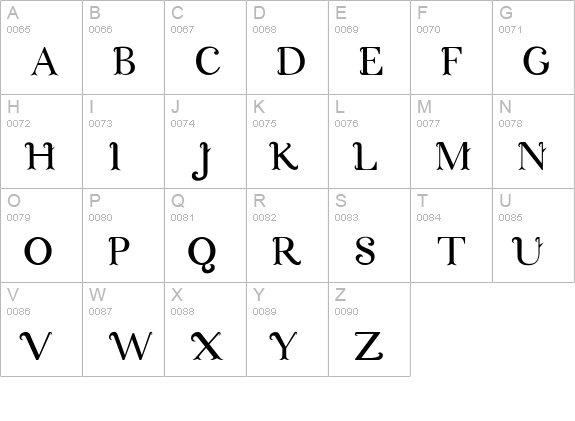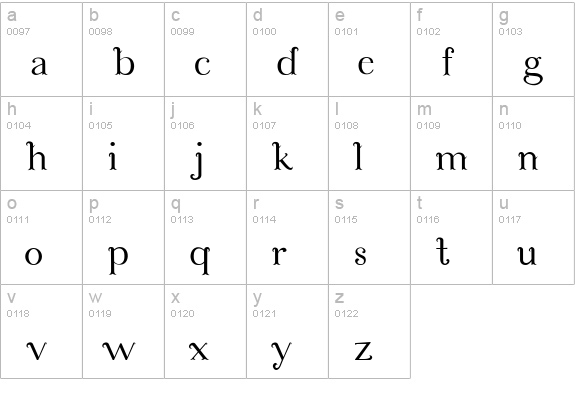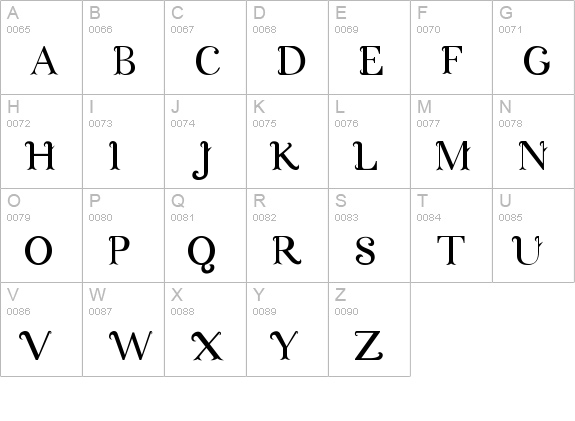
Introducing Cosmic Love, a mesmerizing and magical font that will transport you to another dimension. With its ethereal curves and celestial-inspired letterforms, this font captures the essence of cosmic beauty and universal love. Cosmic Love is not just any font - it is a work of art that combines elegance and enchantment in perfect harmony. Each letter is carefully crafted to evoke a sense of wonder and awe, as if they were plucked from the starry skies themselves. But what sets Cosmic Love apart is not only its extraordinary design, but also its accessibility. We believe that art should be free for all to enjoy, and that's why Cosmic Love is freely available to download at FontsMarket.com. Now, you can bring a touch of cosmic magic to your projects without breaking the bank. Whether you're designing a celestial-themed poster, creating a mystical logo, or adding a touch of enchantment to your social media posts, Cosmic Love is the perfect font to make your creations shine. Its versatility allows it to be used in a wide range of design projects, from branding and advertising to invitations and packaging. Immerse yourself in the cosmic beauty of Cosmic Love and let its captivating charm elevate your designs to new heights. Download this extraordinary font today at FontsMarket.com and let your imagination soar among the stars.